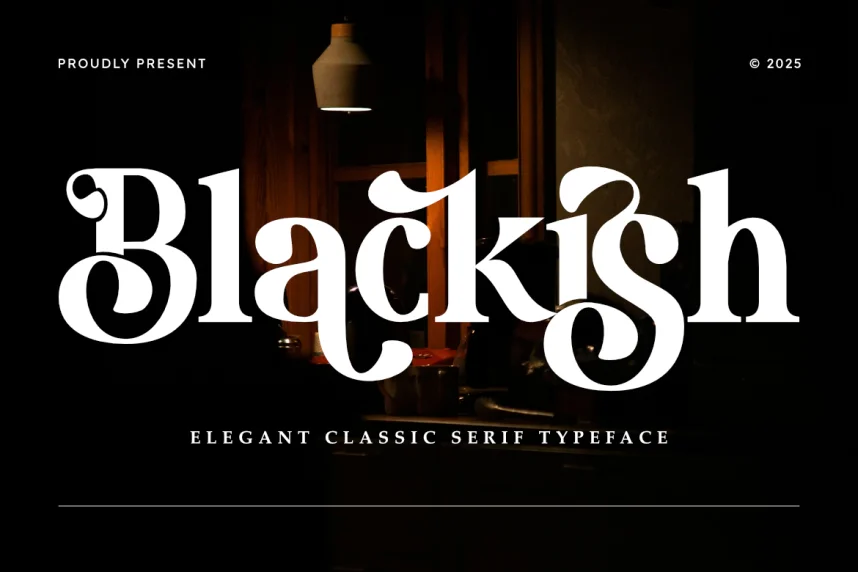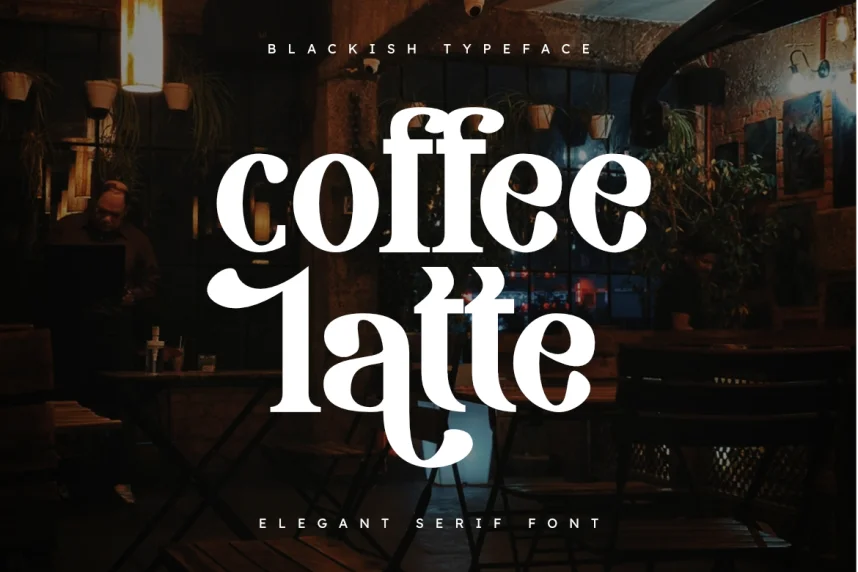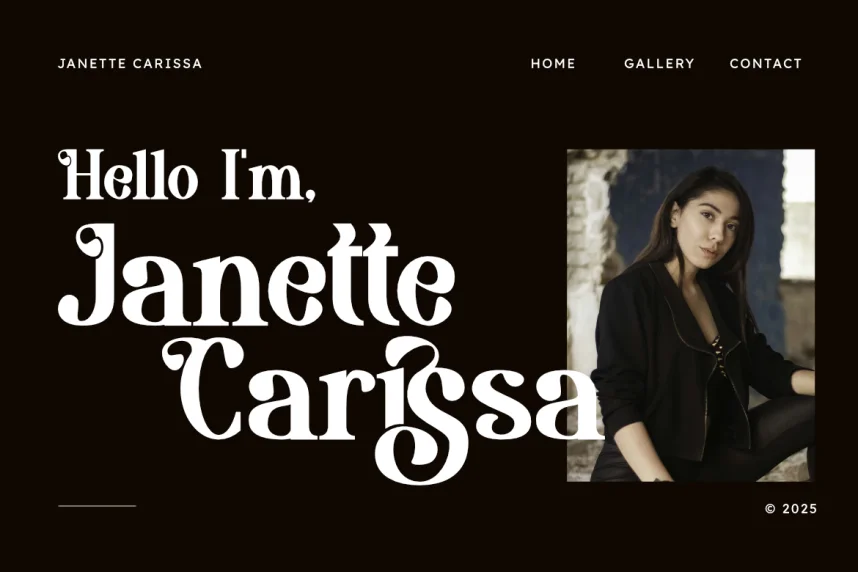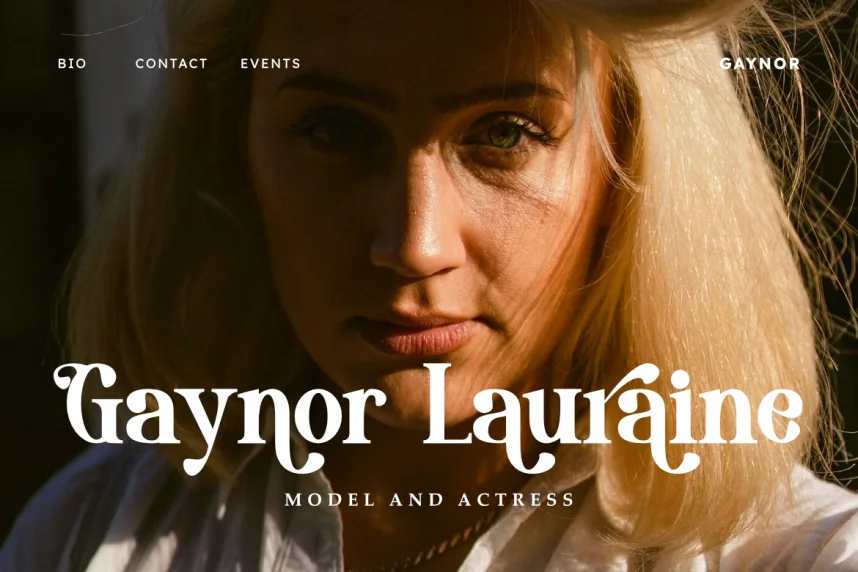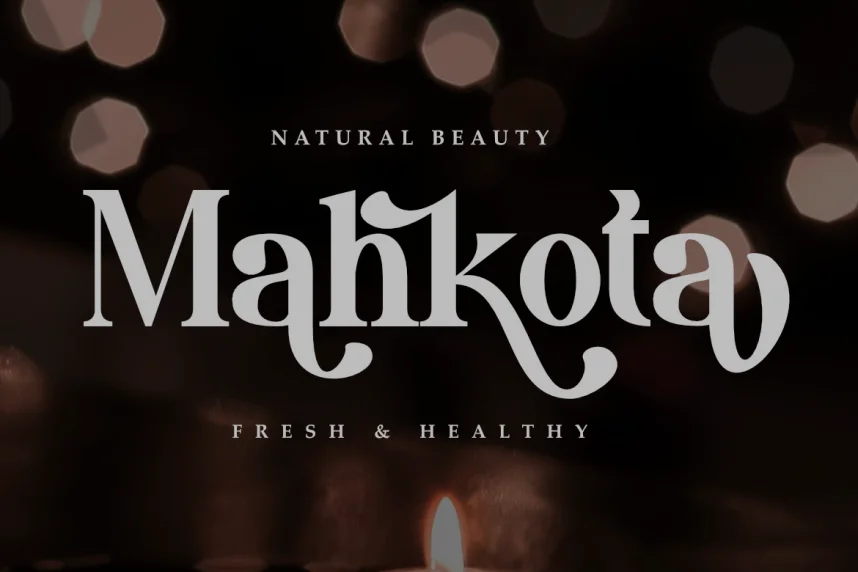
Blackish Font is a bold, display typeface with heavy strokes and sharp angles. Its strong presence makes it ideal for projects that need to stand out, such as posters, headlines, and branding materials that require a modern, edgy look.